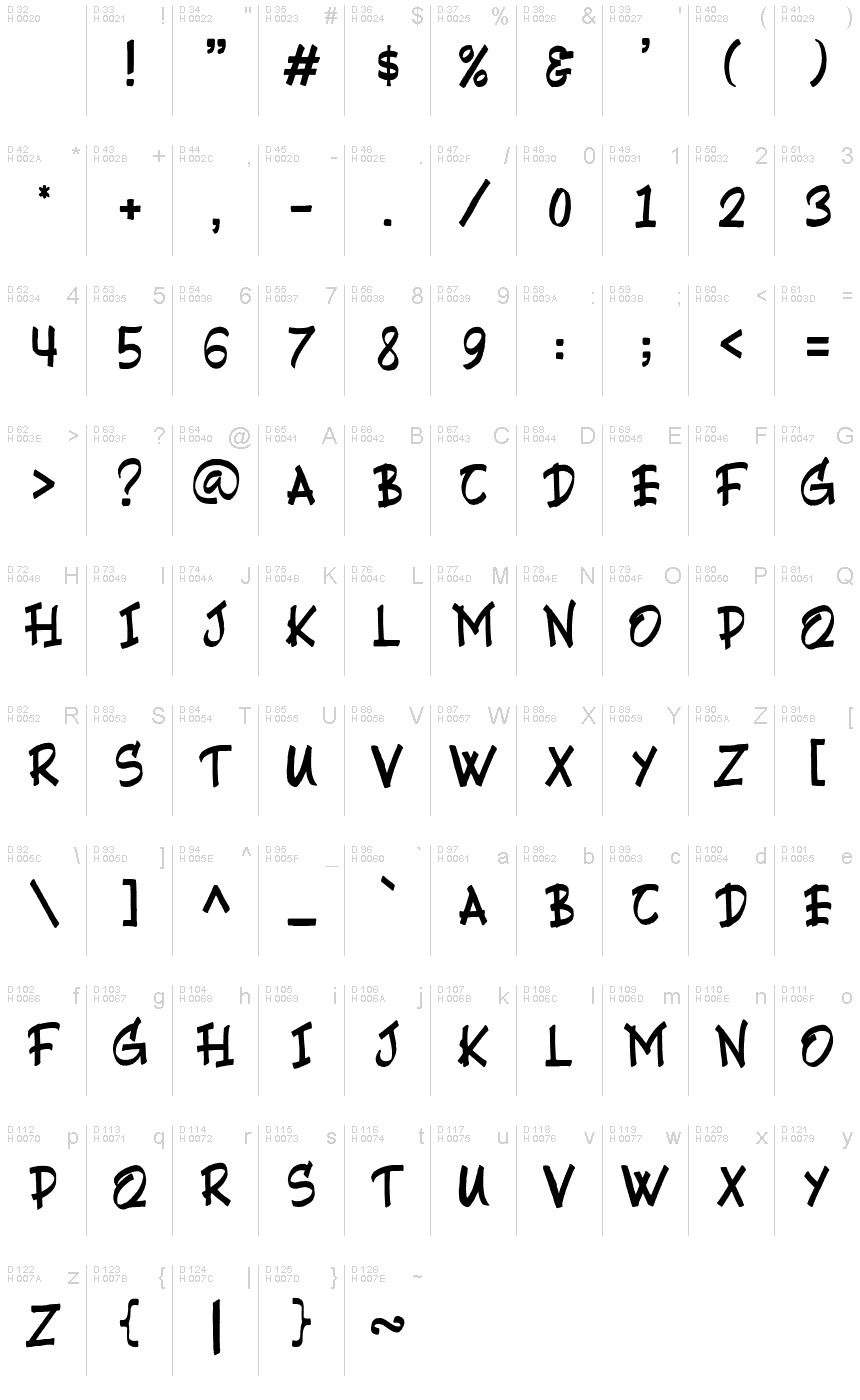
Journey
Journey, a whimsical handwritten font by Alpaprana Studio, adds a playful touch to any project.
Its unique style and quirky strokes make it perfect for children's books, greeting cards, and art prints. The varying widths of the letters lend themselves well to logo design and branding, while the delicate curves bring elegance to wedding invitations and stationery.
Whether you're looking to create a fun website or craft eye-catching packaging, Journey is the ideal choice for adding a touch of whimsy and charm.